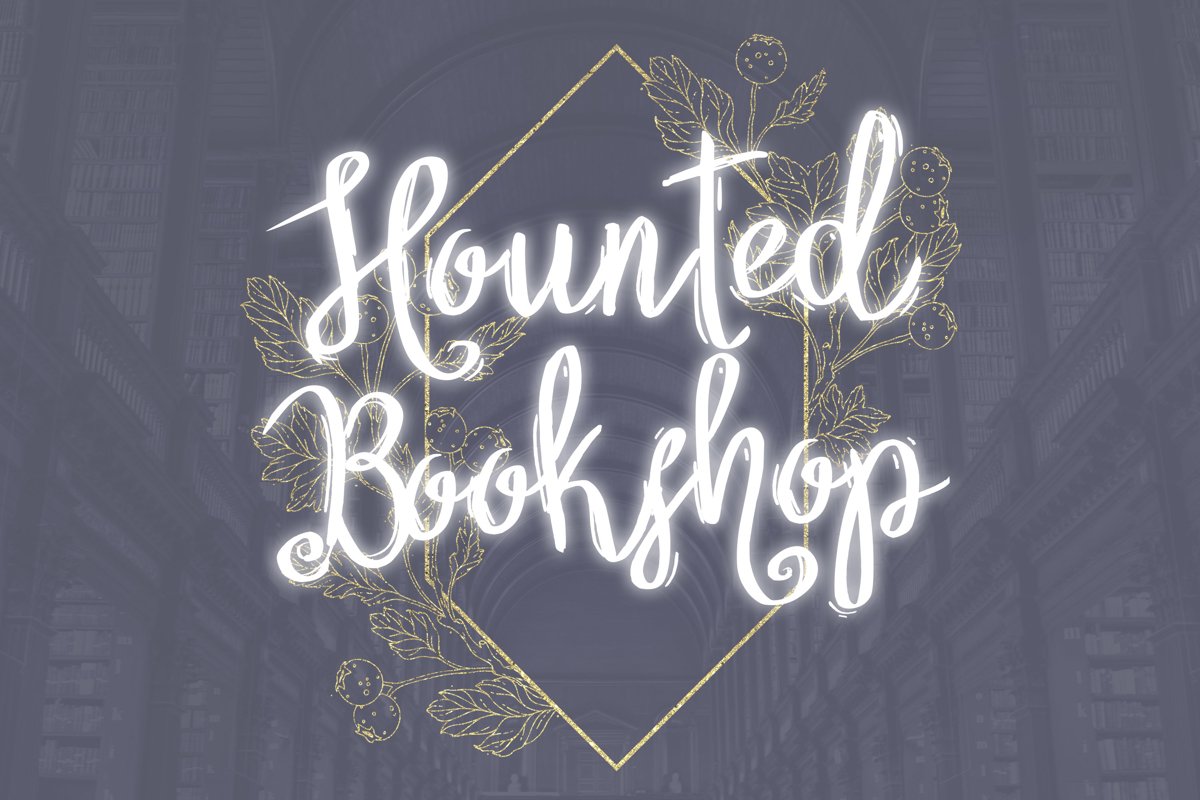
Hounted Bookshop Font
Hounted Bookshop is a bouncy and cute handwritten font. It will elevate a wide range of design projects to the highest level, be it branding, headings, wedding designs, invitations, signatures, logos, labels, and much more!
The font Hounted bookshop contains 104 glyphs
and 39 binary stored kerning pairs.